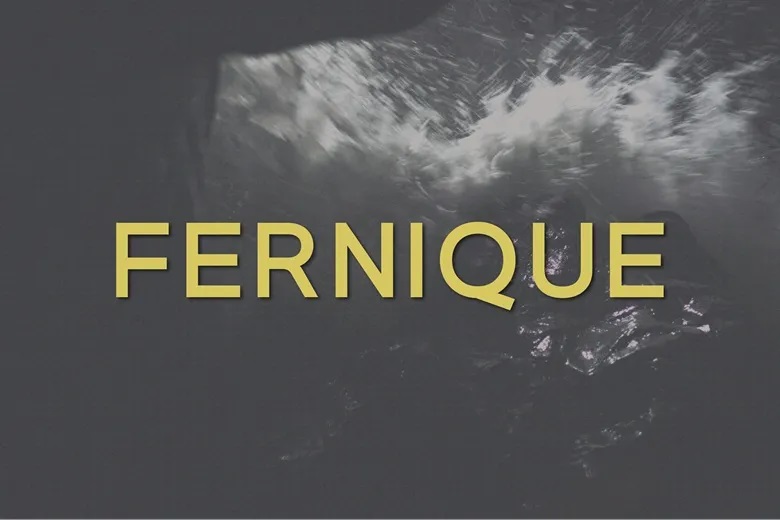
Fernique Font
Fernique is an elegant sans serif font. An uppercase face that includes all numbers, a variety of punctuation and symbols. A flexible font that works well for logos, weddings, invitations, quotes, advertisements, print, magazines and much more.
Fernique Sans Serif Font